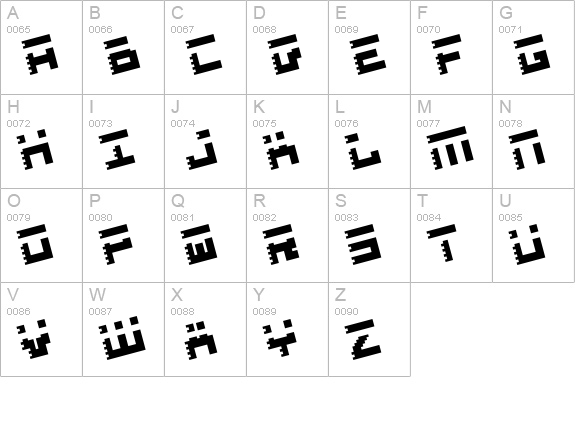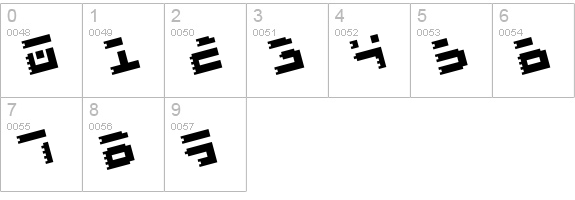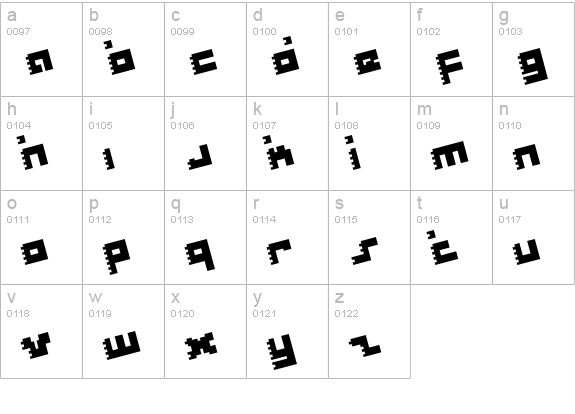
Introducing Roid Rage Rotate font, a bold and dynamic typeface that exudes energy and power. With its strong and angular letterforms, this font is perfect for making a statement in your designs. Whether you're creating posters, logos, or any other project that requires a touch of fierceness, Roid Rage Rotate is sure to command attention. What's even better is that Roid Rage Rotate font is available for free download at FontsMarket.com. That's right, you can add this impressive font to your collection without spending a dime. Don't miss out on the opportunity to elevate your designs with the bold and impactful Roid Rage Rotate font. Download it now and let your creativity soar!